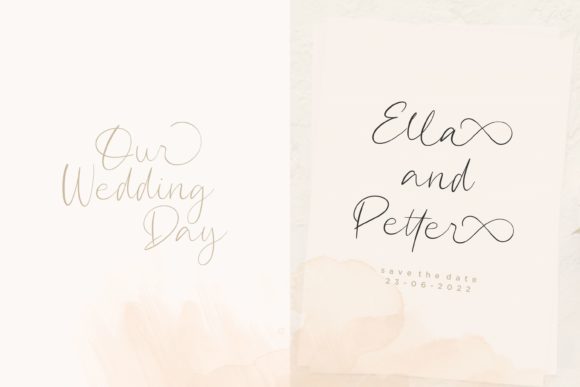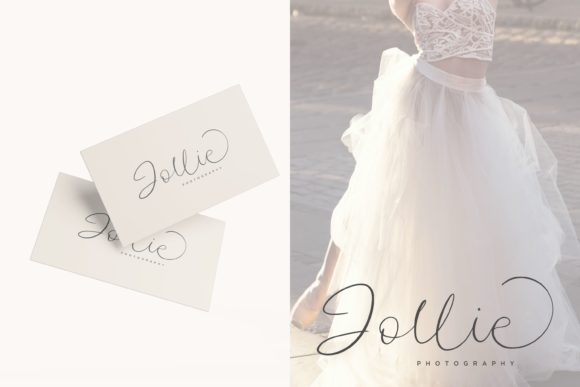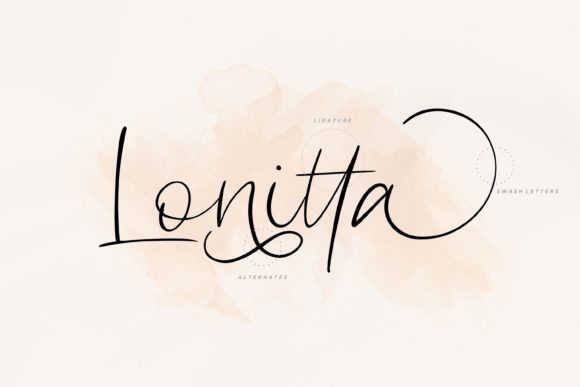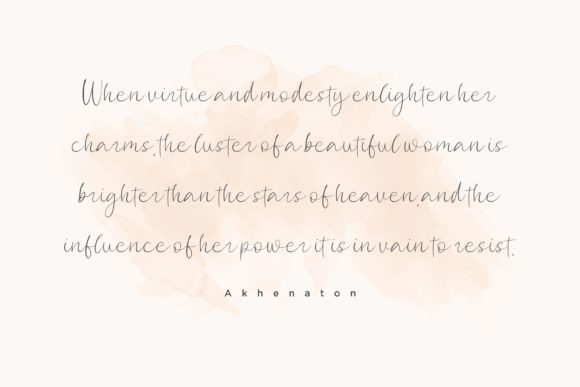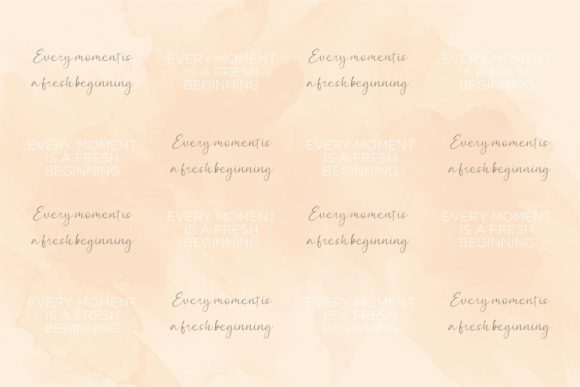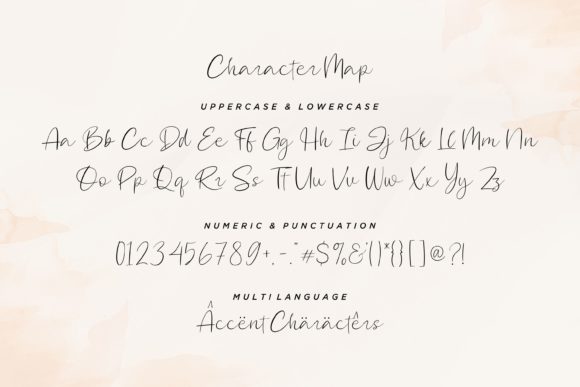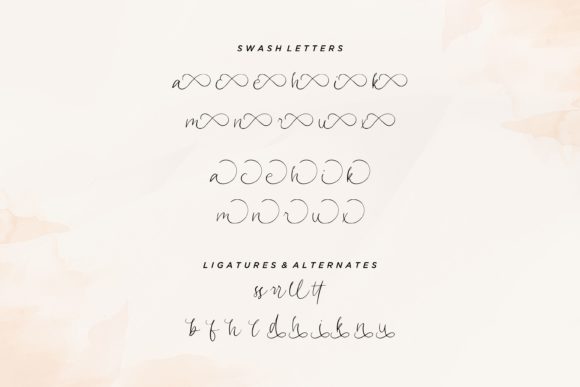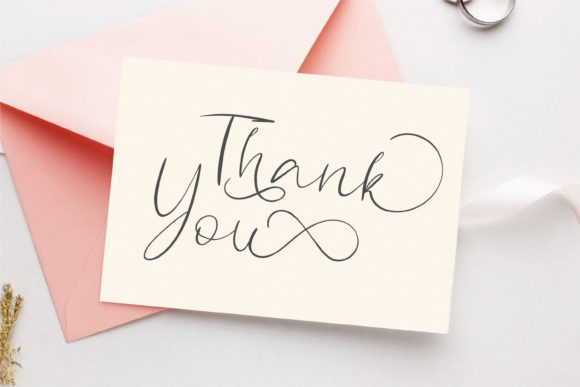
Hello Nadhira Font
About Hello Nadhira Font
Hello Nadhira is a thin lettered and elegant handwritten font. It looks beautiful on a variety of designs requiring a personalized style, such as wedding invitations, thank you cards, weddings, greeting cards, logos and so on.
Hello Nadhira is PUA encoded which means you can access all of the glyphs and swashes with ease!